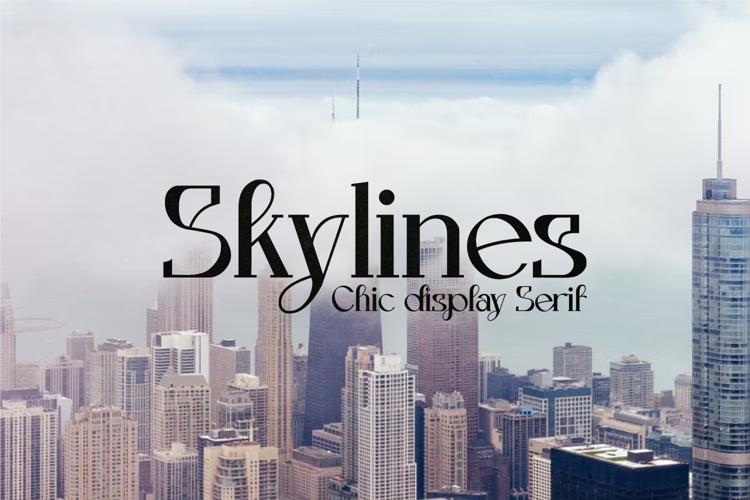
Skylines Font
Skylines- a chic display serif with fonts that seem to bring out the characters. I created a Grotesk serif style but with added contrast and selective serifs to create a contemporary and memorable font. Sharp points combine with smooth curves creating a unique glyph that's perfect for eye-catching word signs and typographic posters. Alternate characters and ligatures are intentionally made with different styles to add a unique and character impression.